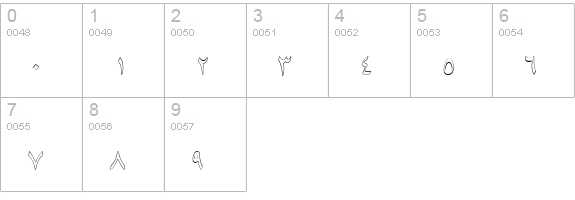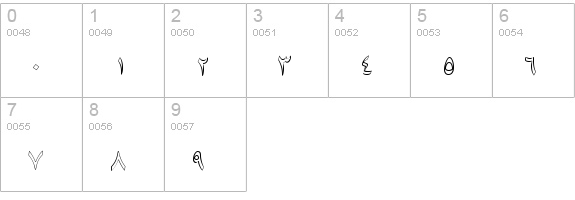
B Sepideh Outline Font Details
B Sepideh Outline is a stunning and modern font that exudes elegance and sophistication. Its sharp lines and sleek design make it perfect for a wide range of projects, from branding to posters to social media graphics. The outline style adds a unique touch to any text, making it stand out and capture attention. The clean and minimalistic look of B Sepideh Outline font makes it versatile and suitable for various design purposes. Whether you're creating a logo for a luxury brand or designing a stylish invitation, this font is sure to elevate your project to the next level. Best of all, B Sepideh Outline font is available for free download at FontsMarket.com. So you can easily access this high-quality font and use it in your designs without any cost. Don't miss out on this fantastic opportunity to enhance your projects with the elegant and modern B Sepideh Outline font.